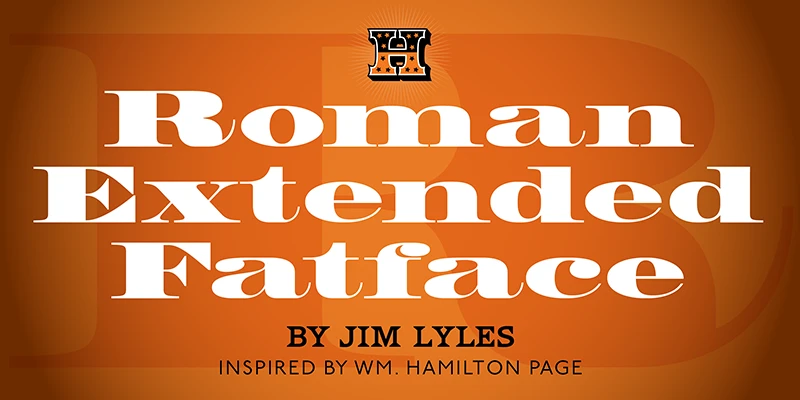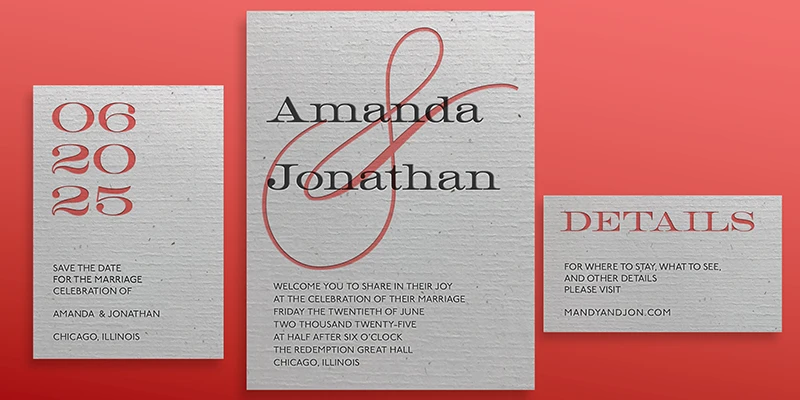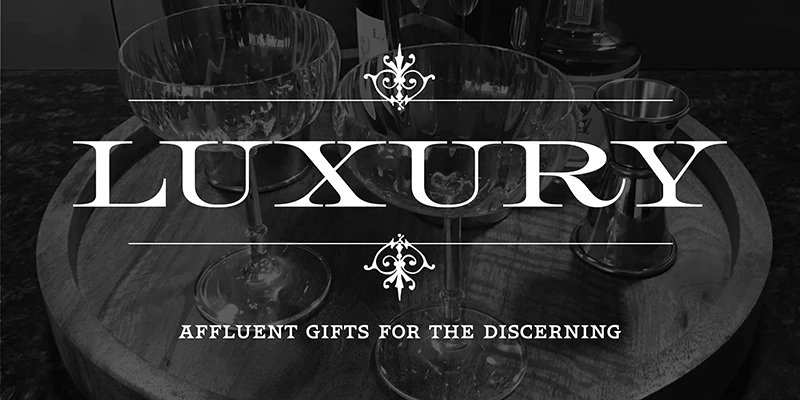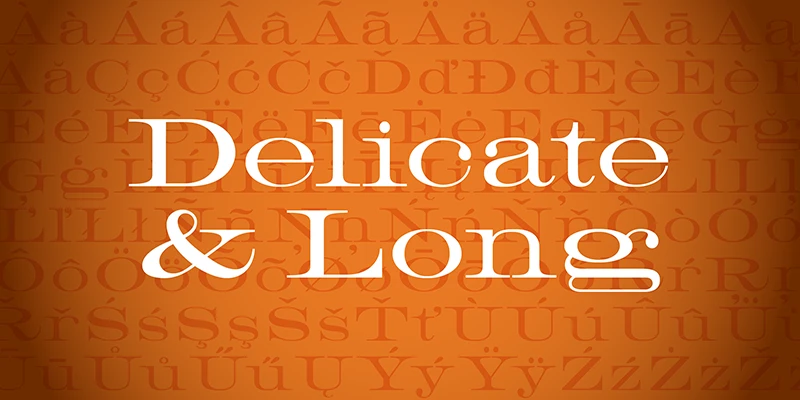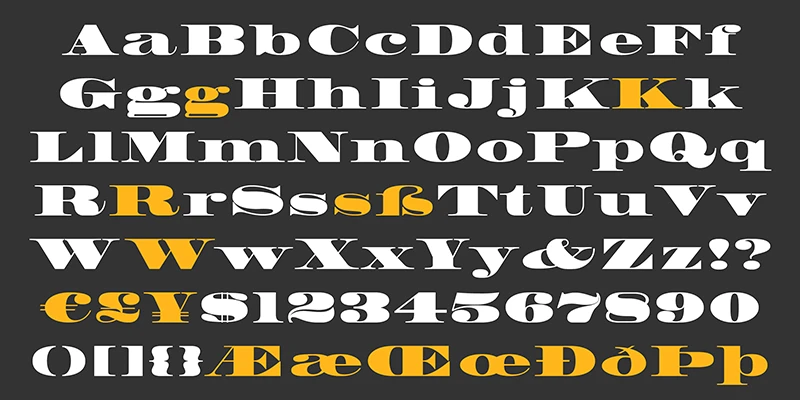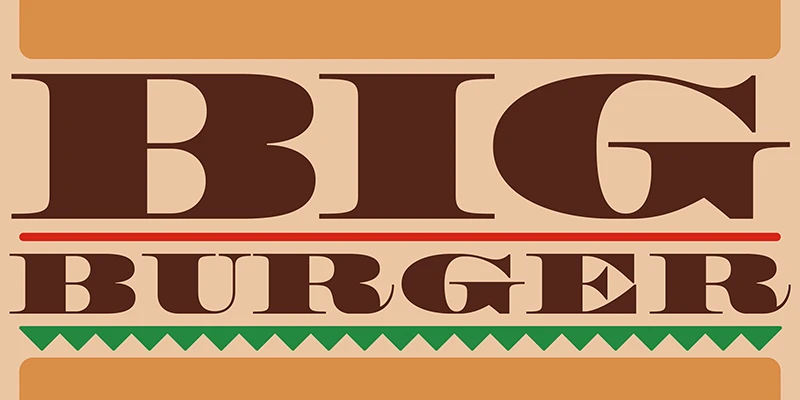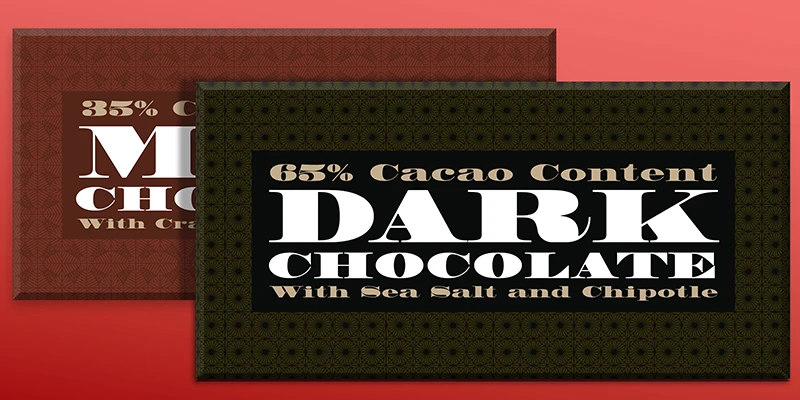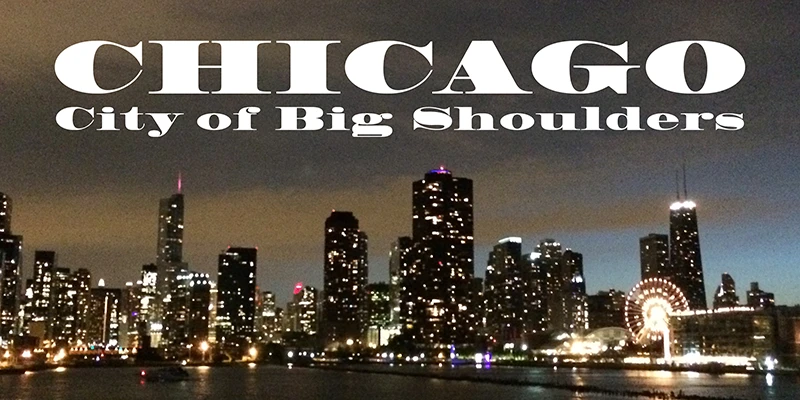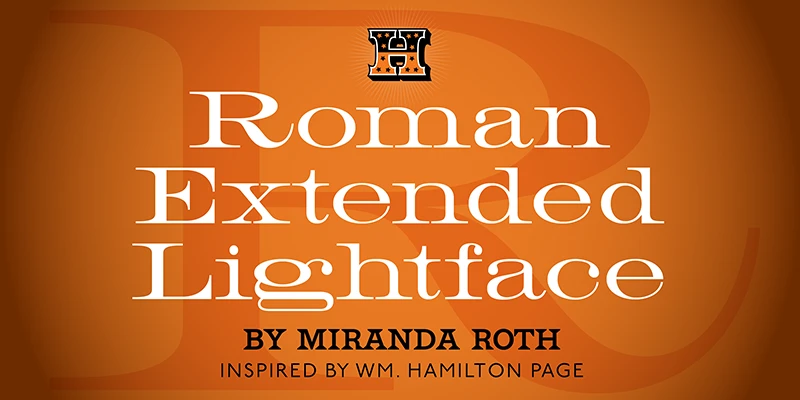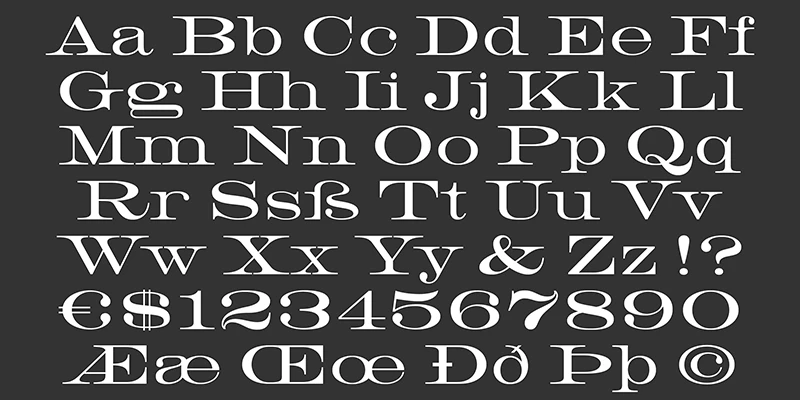
Roman Extended
From Hamilton Wood Type Collection
HWT Roman Extended is a pairing of opposites in heft, but comrades in expansion. Fatface is a super-high contrast design, while Lightface offers delicate elegance. What they have in common is width. With Fatface, rather than reviving one version, designer Jim Lyles combined the best historical details. Lightface, a rare find in print shops, was recreated by Miranda Roth, maintaining grace and showcasing subtle contrast and wide, bracketed serifs. Both faces are eye-popping in large sizes!
Designed by Jim Lyles & Miranda Roth Kirchmeyer
Roman Extended Lightface
Roman Extended Fatface